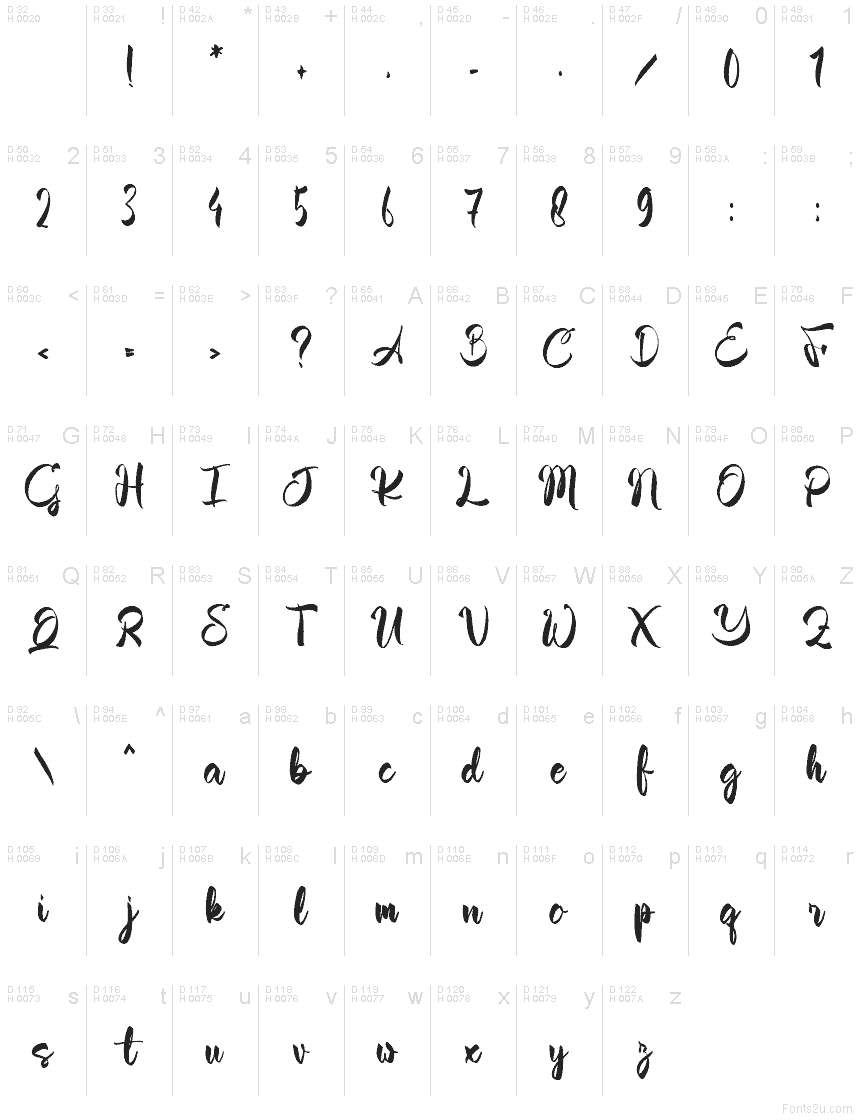
Garnite Regular
Garnite font by Afkari Studio is an expressive brush typeface with artistic character, dynamic movement and modern feel. It has calligraphic influences, yet it shows more decorative touches than pure handwritten forms. The medium weight between thickness and thinness allows the whole appearance to exhibit balance and a superior flow.
Free for download, this brush font serves a pool of useful designs including packaging, book covers and interior design. It will decorate business windows or be used in business cards for hair salons, flower shops and fashion magazines. Branding remains another field within which this artistic font excels in being memorable to customers.